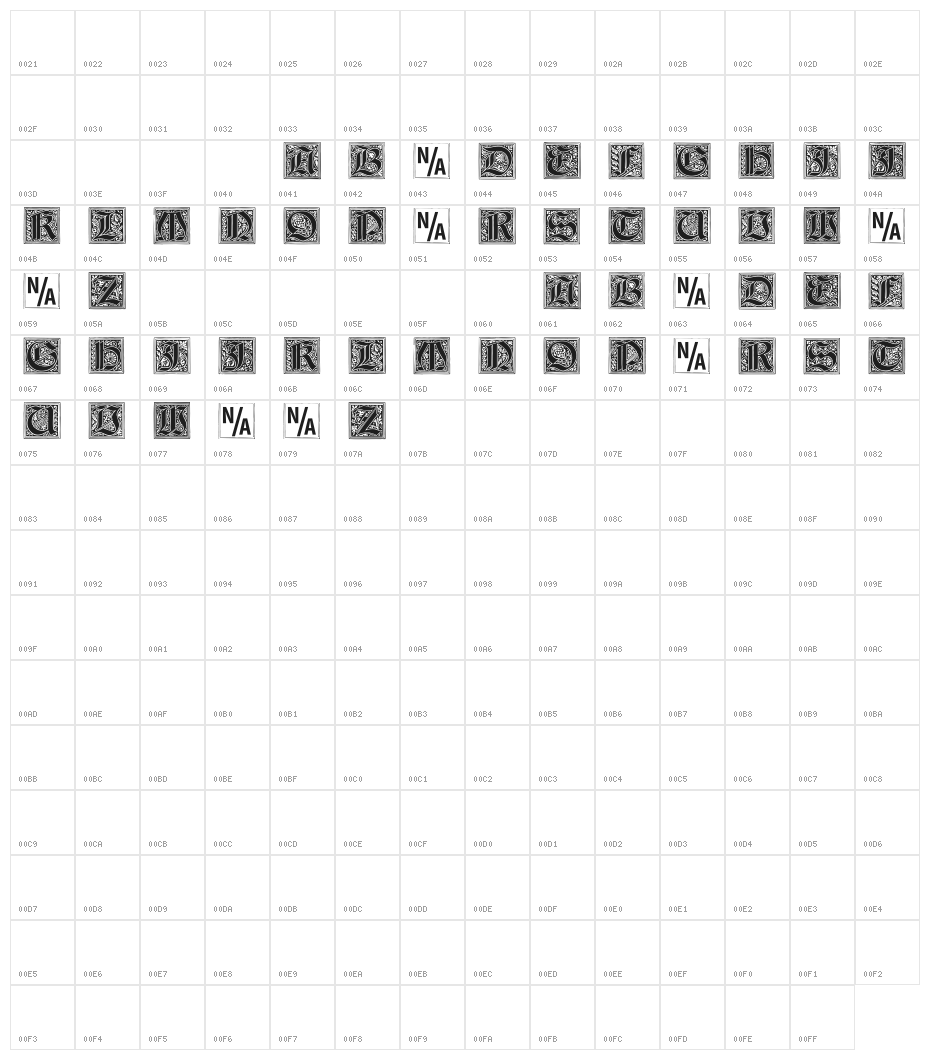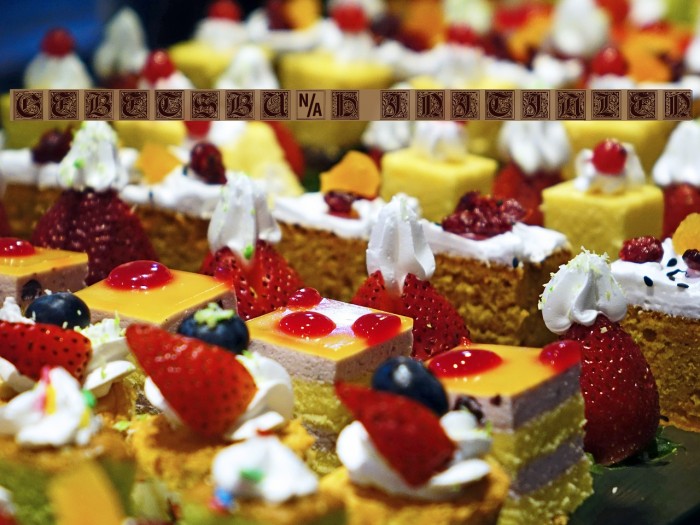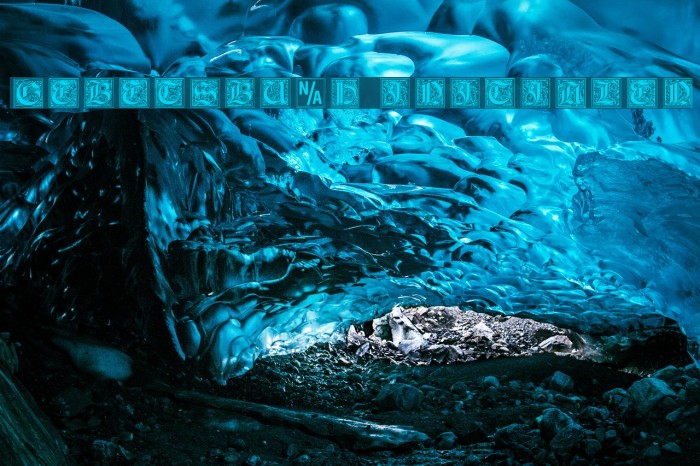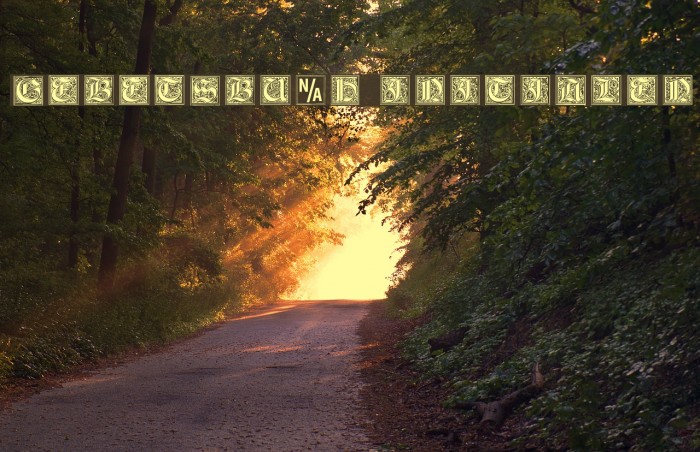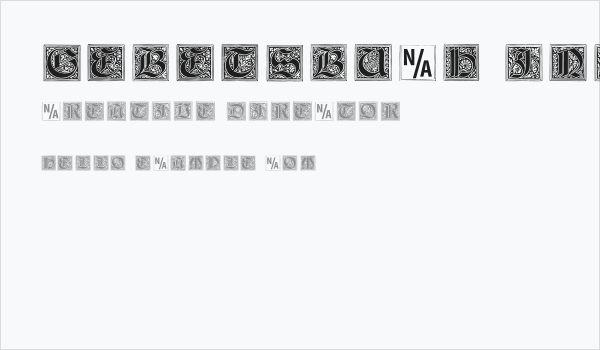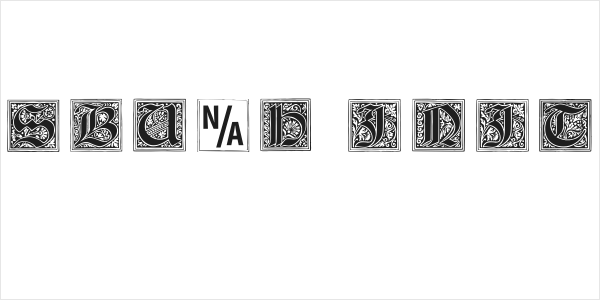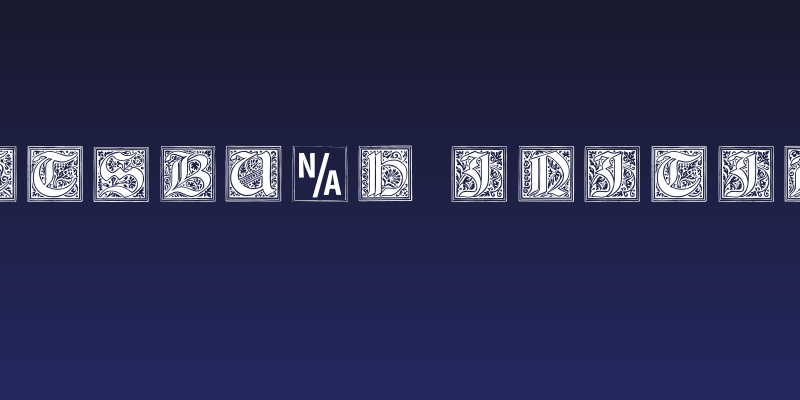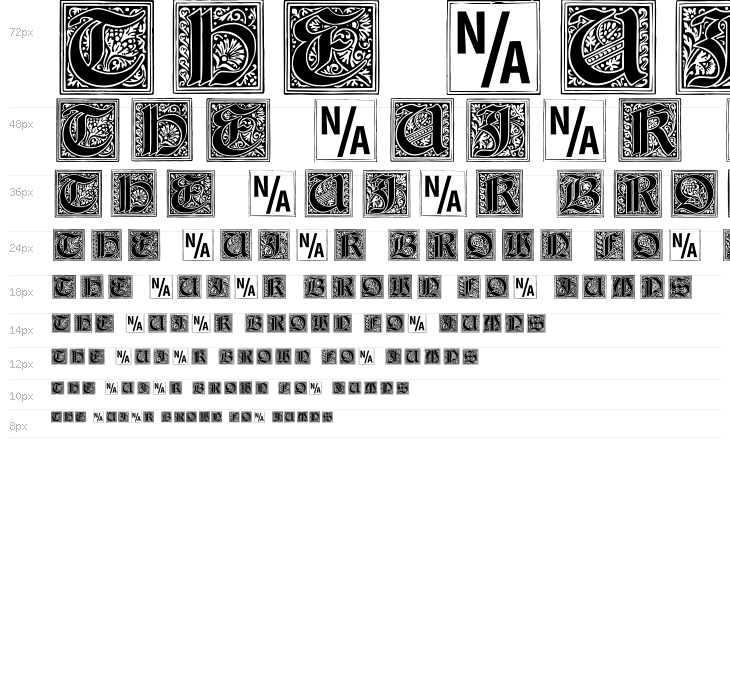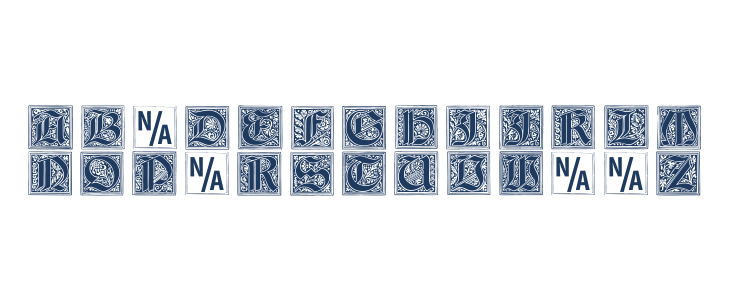
Gebetsbuch Initialen Font
Gebetsbuch Initialen Description
This font features ornate, decorative initials reminiscent of illuminated manuscripts. Each letter is encased in a square frame, filled with intricate floral and vine motifs. The design is highly detailed, with a strong emphasis on medieval aesthetics, making it ideal for projects that require a historical or classical touch. The letters are bold and stand out due to their elaborate embellishments, which add a sense of grandeur and sophistication. The font is primarily uppercase, with a focus on artistic presentation rather than readability, making it suitable for decorative purposes rather than body text.
| Use Case | Logos, Headlines, Decorative elements |
| Proposed Projects | Ideal for book covers, invitations, historical documents, and decorative art projects. |